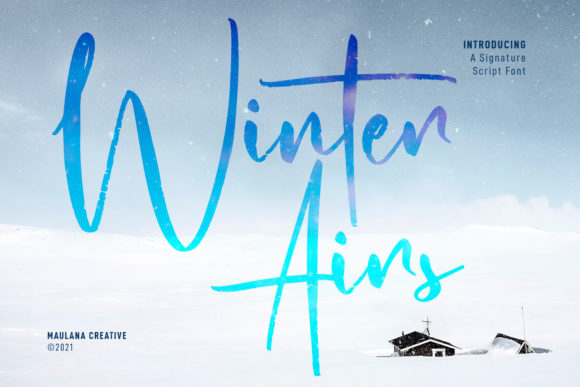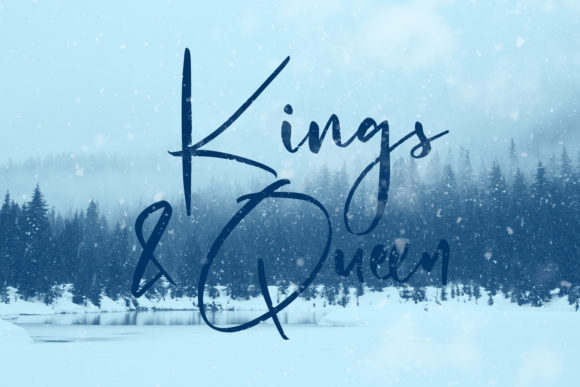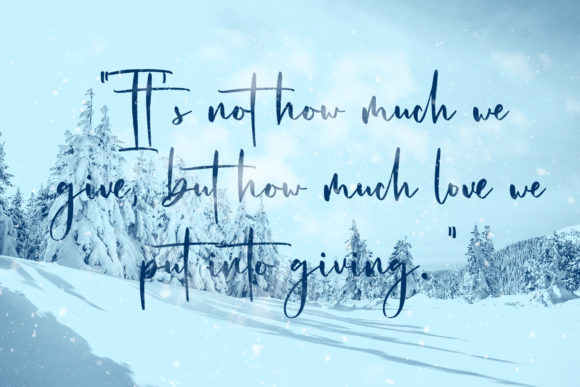
About Winter Airs Script Font
Winter Airs is a natural script font featuring rough strokes, fun characters, and unique ligatures and alternates. This font is great for logo design, Social media, Movie Titles, Books Titles, short text, and even long text.